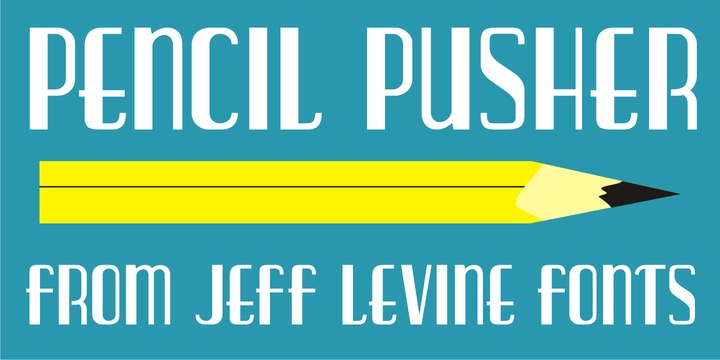
Pencil Pusher JNL
by Jeff Levine
The Pencil Pusher JNL Font Family was designed by Jeff Levine and published by Jeff Levine. Pencil Pusher JNL contains 1 styles. More about this family
The unusual hand lettering found on a piece of 1940s sheet music forms the basis for Pencil Pusher JNL.